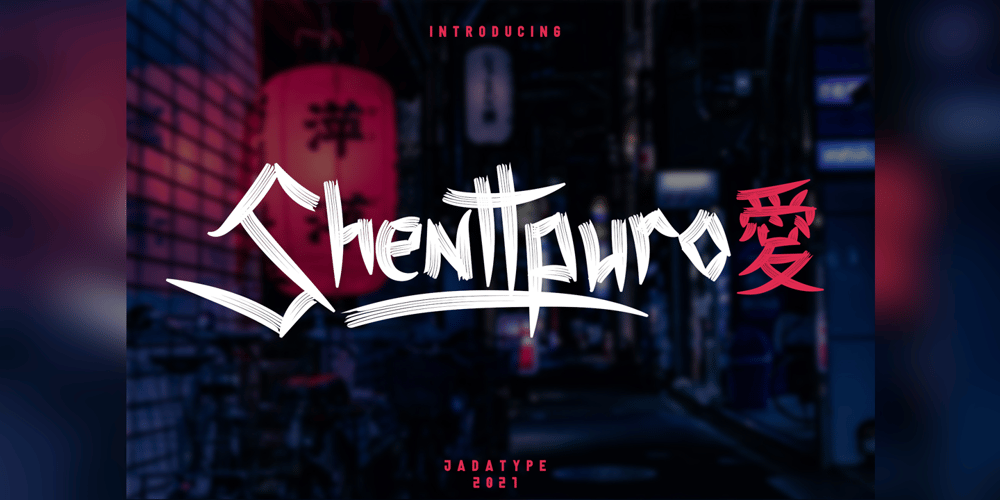
Shenttpuro Font Family was designed by Jada Akbal and published by Jadatype. Shenttpuro contains 2 styles and family package options. Shenttpuro is a handwritten brush font with its Japanese vibe !. suitable for your branding, product, logotype, events, and others. Shenttpuro contains standard English letters and several letters that support multilingualism. Can be installed in design applications such as the adobe family or affinity, Shenttpuro is ready to support your designs!By purchasing this font, you will get:- Uppercase and Lowercase letters- Alternates Characters- Ligatures- Numbering and Punctuations- Multilingual Support- Works on PC or Mac- Simple Installation- Support Adobe Illustrator, Adobe Photoshop, Adobe InDesign, also works on Microsoft Word.Thank you